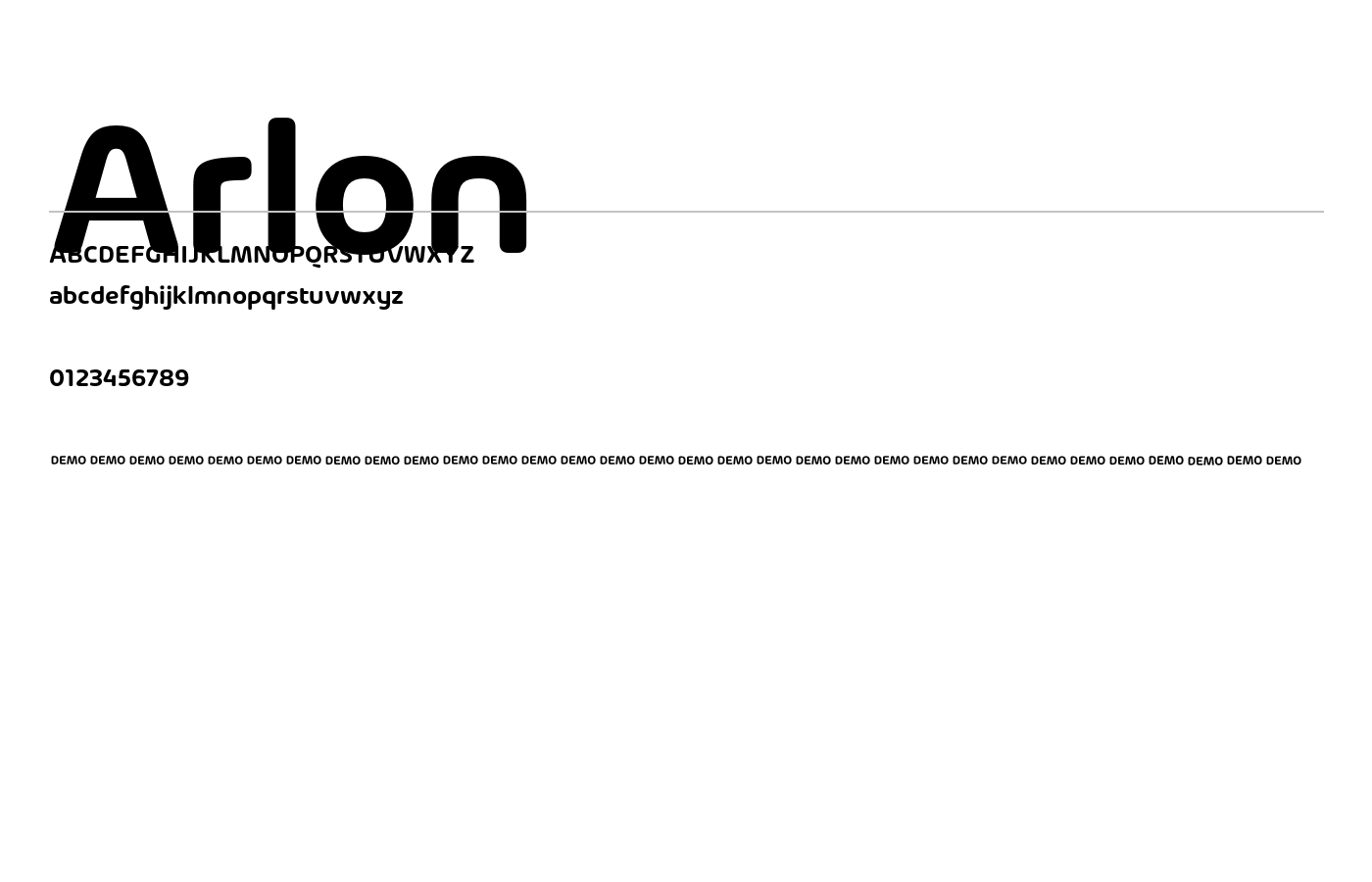
Arlon is a clean and modern sans serif font with a slightly rounded geometric style, offering a friendly yet professional appearance. Its medium weight and normal width, combined with consistent stroke thickness and clear letterforms, make it highly readable for both display and body text. This font works well for branding, websites, and editorial design where a contemporary and approachable tone is desired.
Arlon Font
About Arlon Font
| Font family | Arlon Font |
| Designer | Marc Lohner |